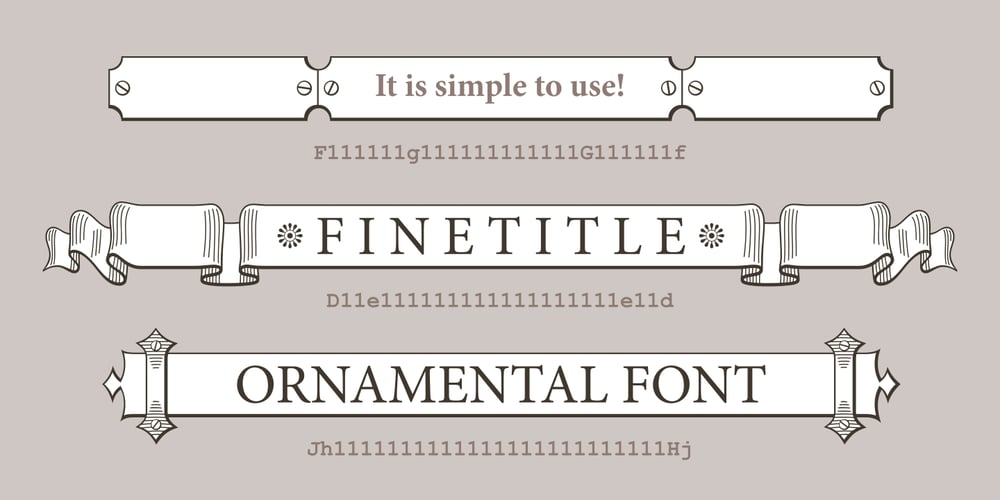
Finetitle Font Family was designed by Lukyan Turetskyy and published by 2D Typo. Finetitle contains 1 styles and family package options. A set of elegant designed framework for headers.